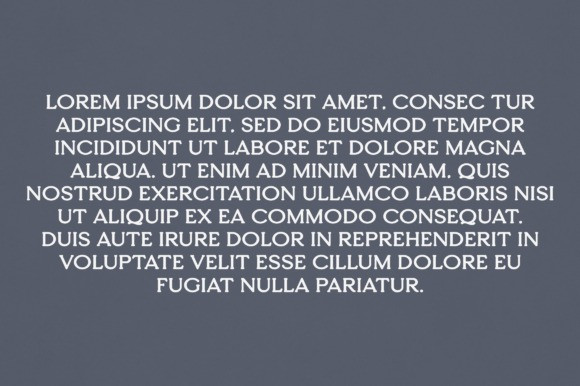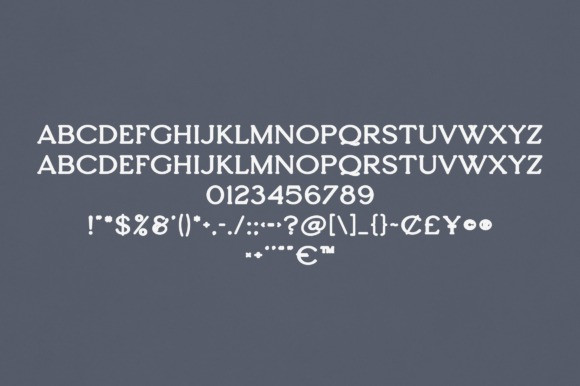
Avery Font
Avery Font is an elegant and versatile font that will make your typography truly unique! It will enchant every logo, branding, headline, or plain text!
Classification: Serif Fonts, Slab Serif Fonts